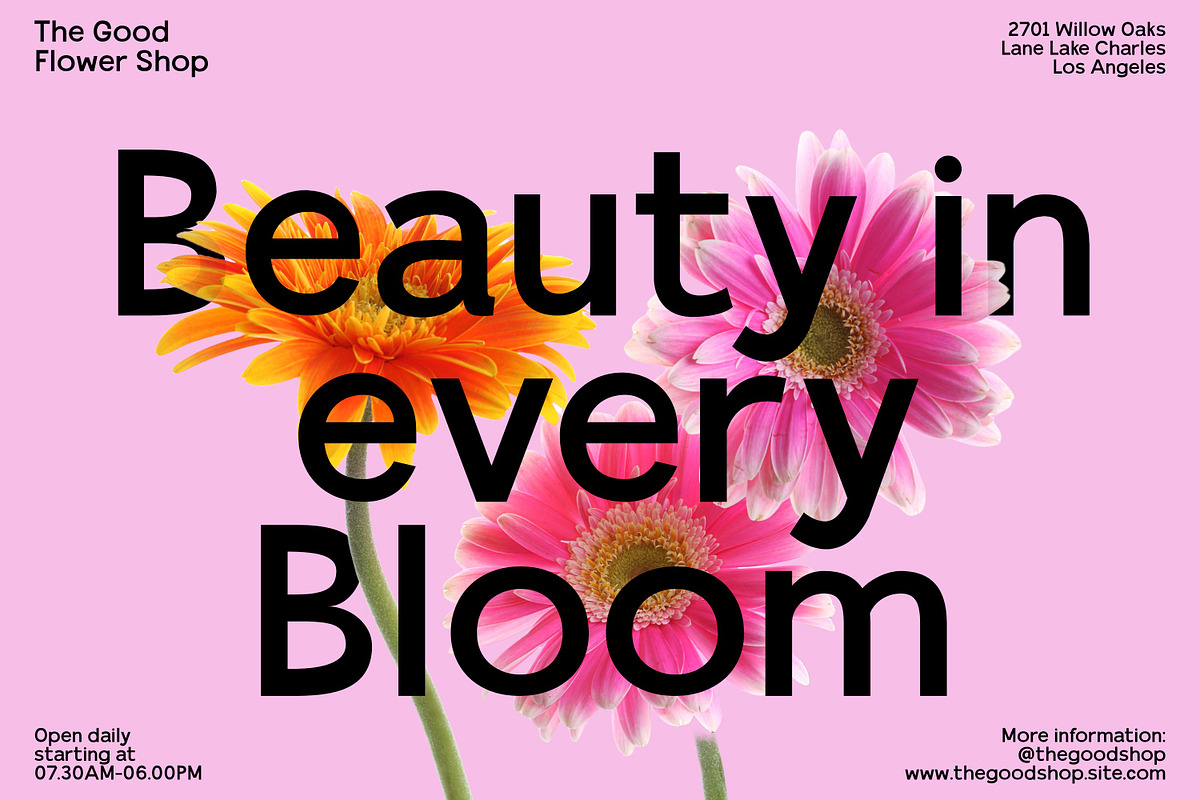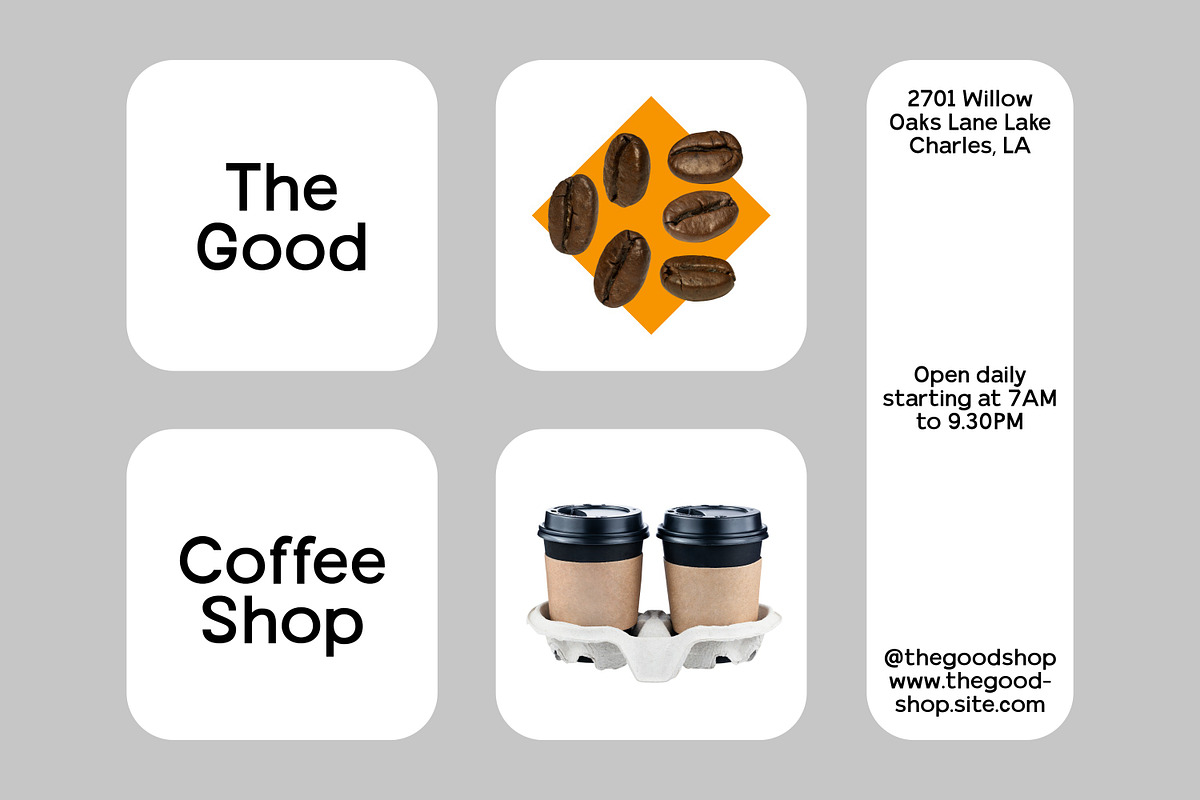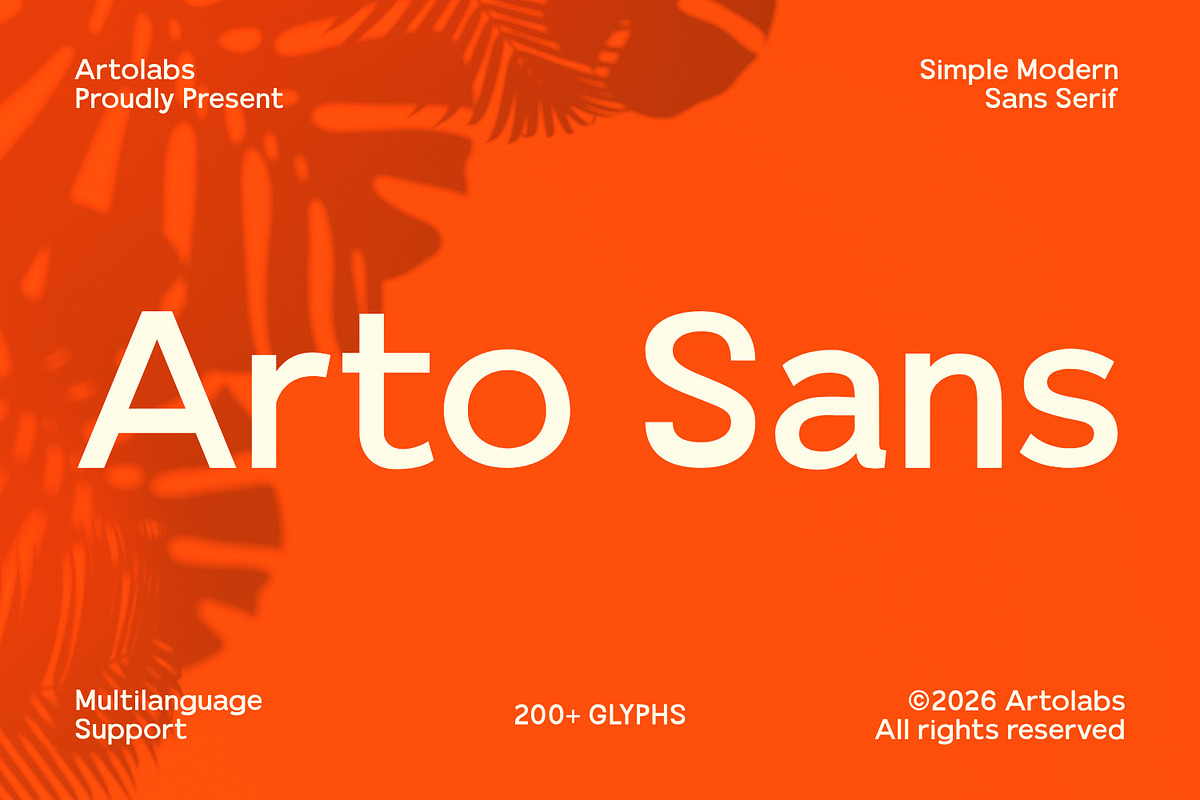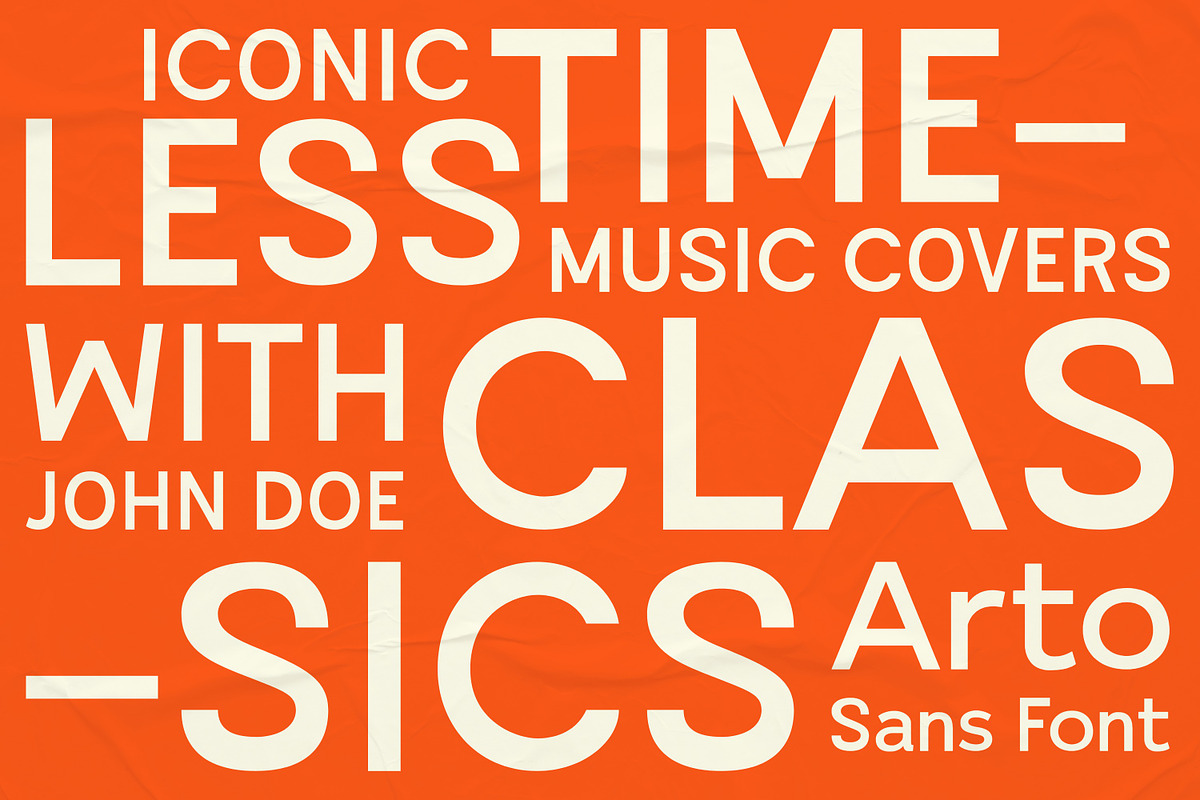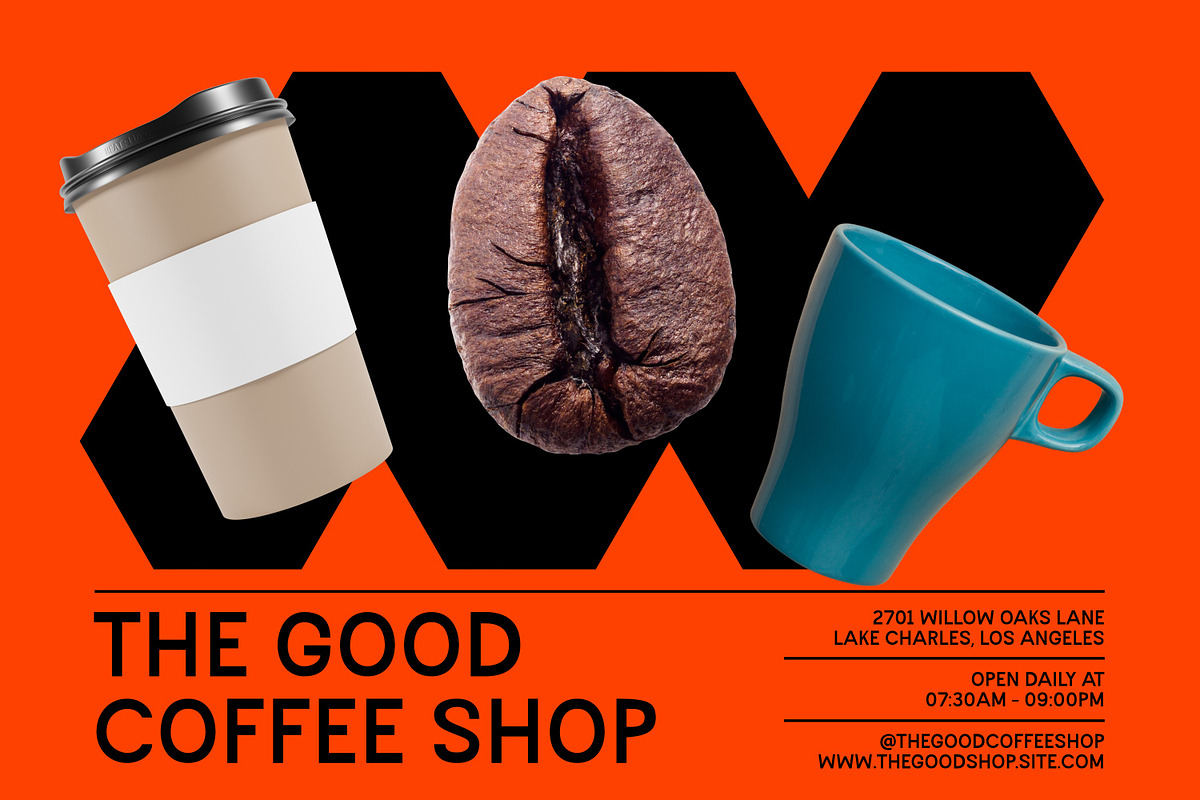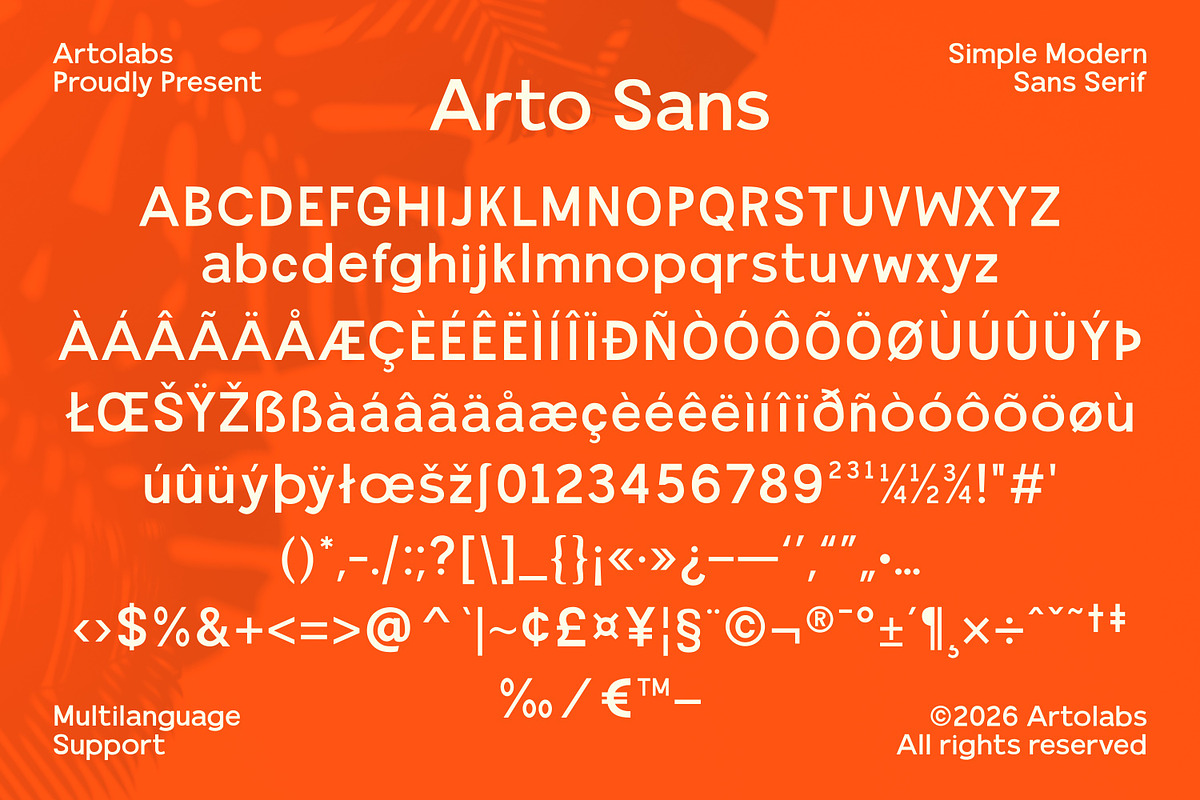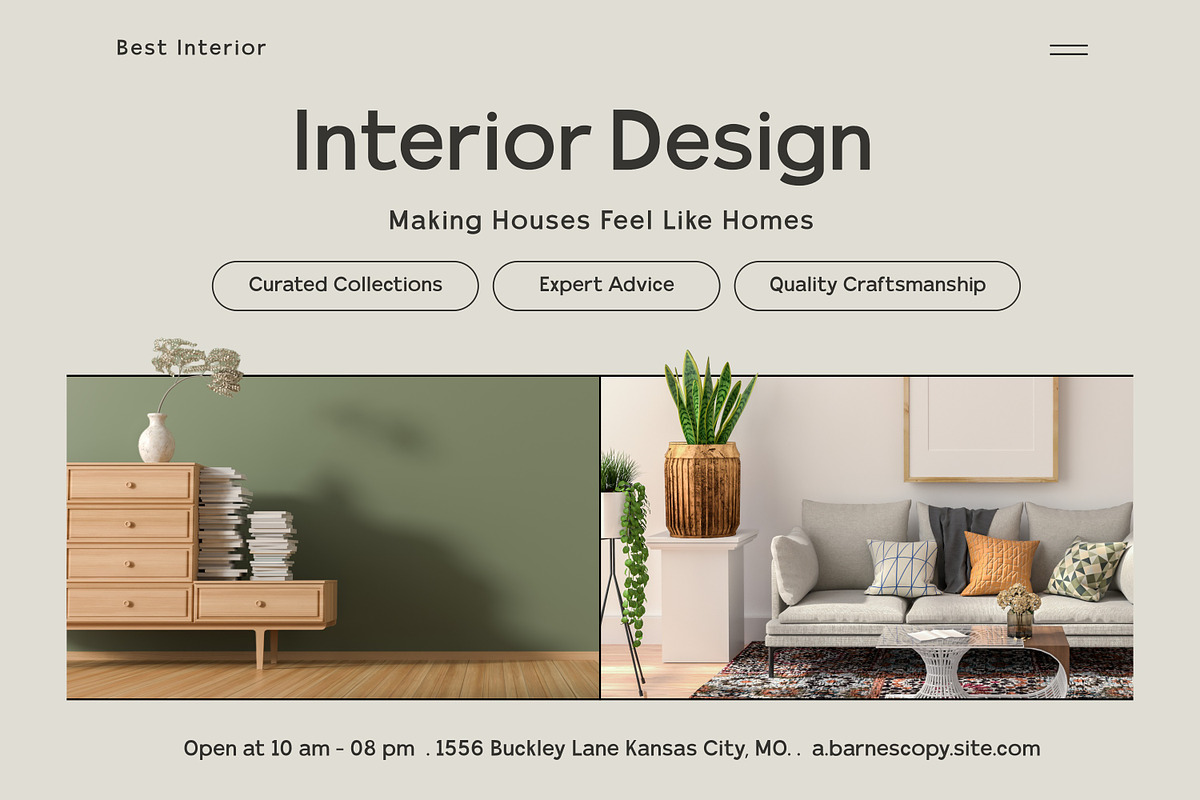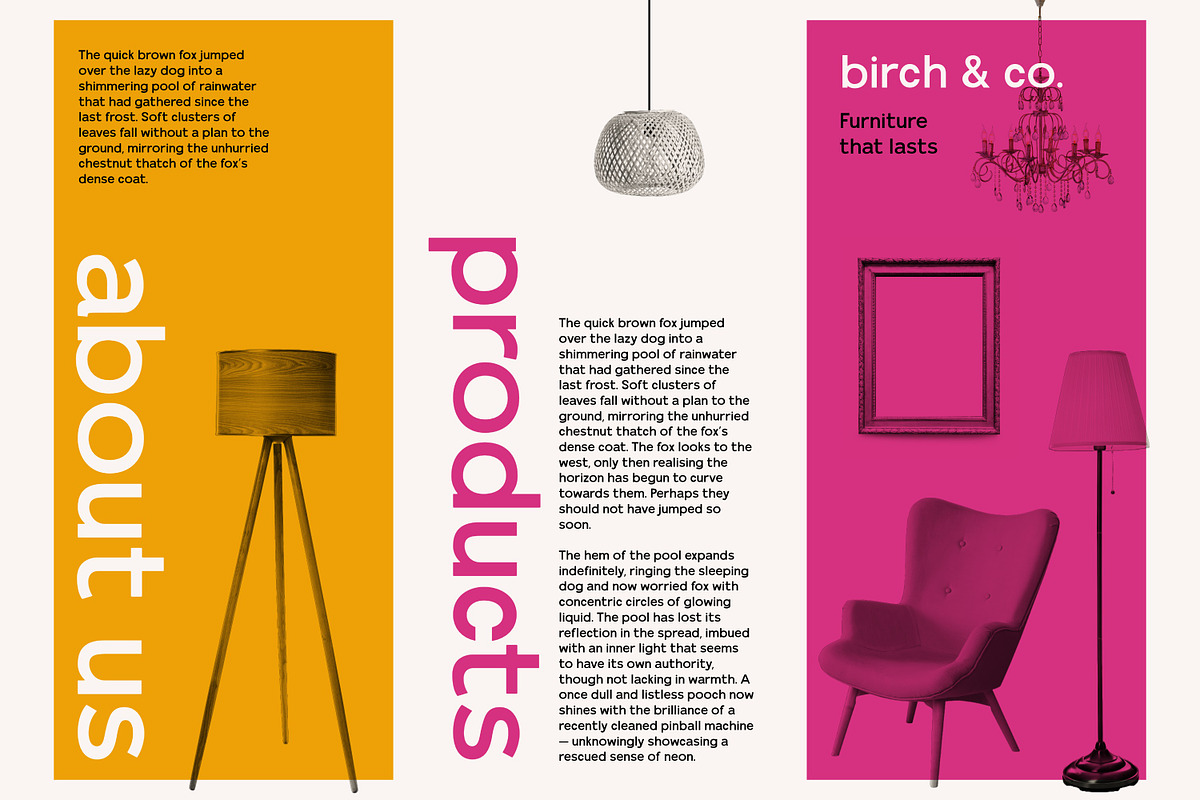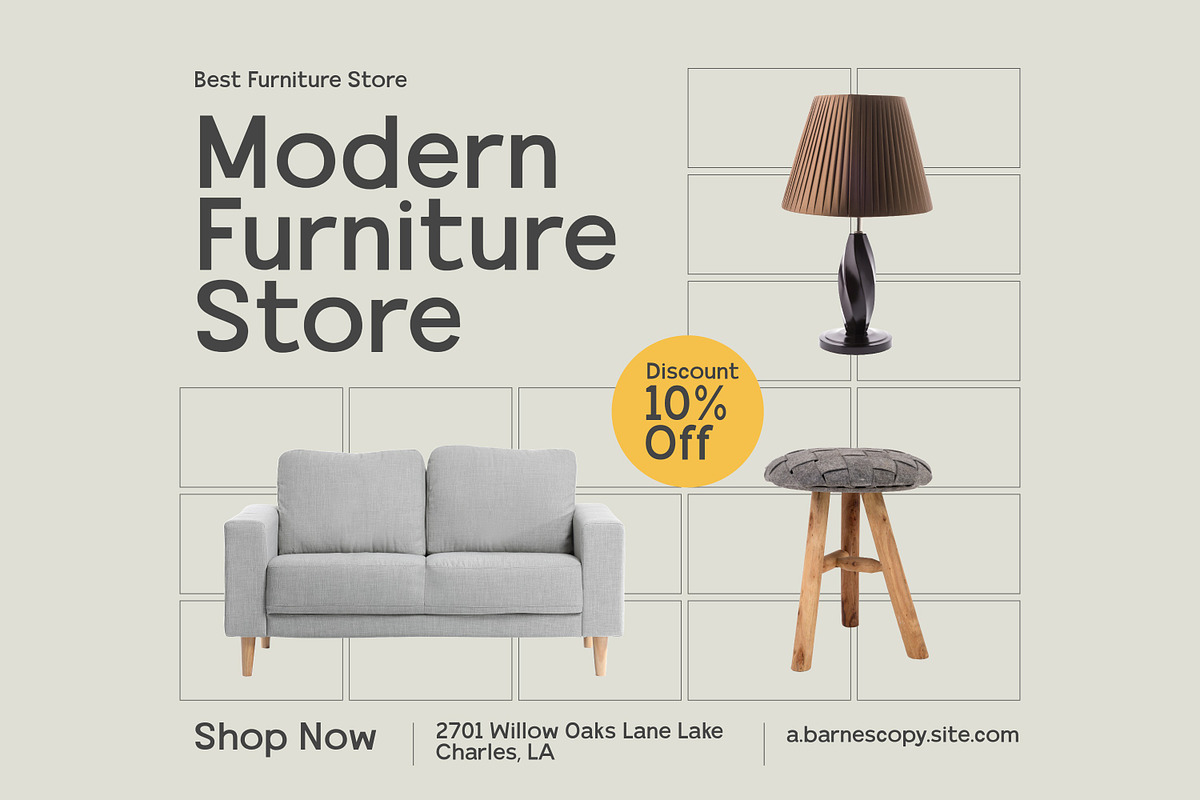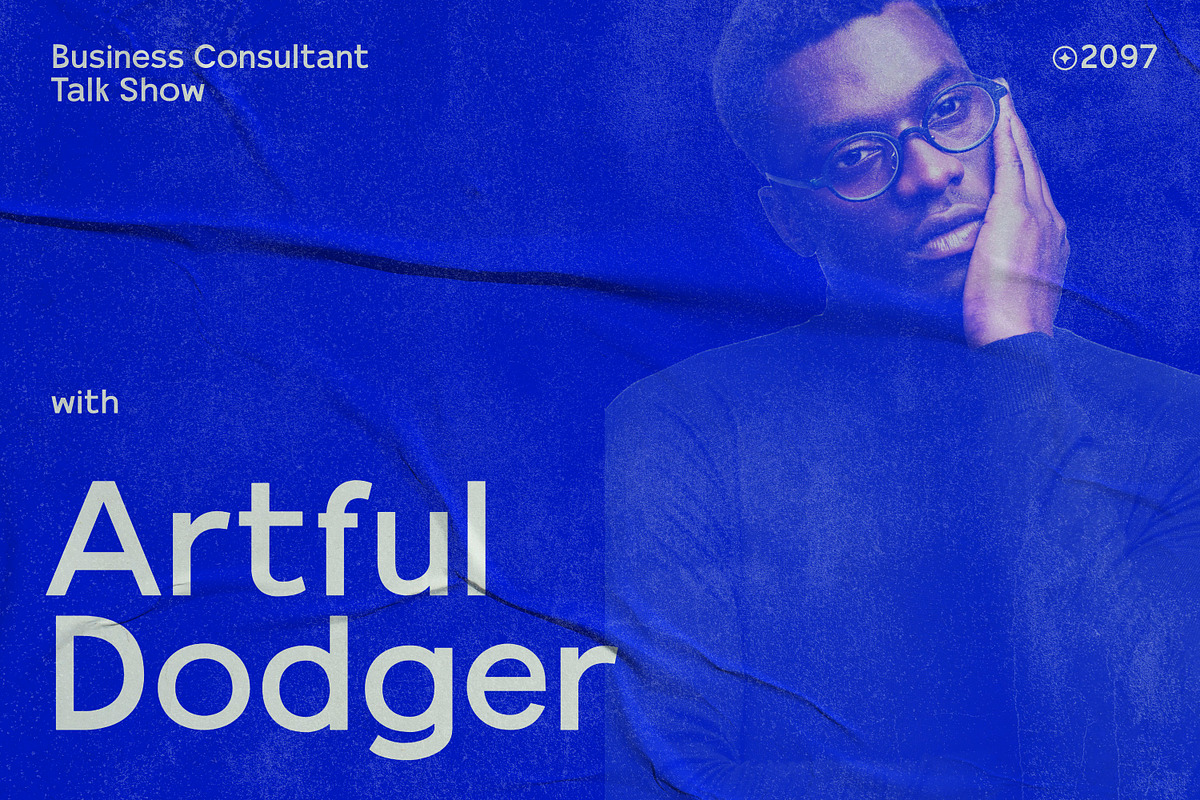
Arto Sans | Simple Modern Sans Serif
Arto Sans is a simple, modern sans serif font with clean, rounded letterforms. Its balanced structure and comfortable readability make it a versatile choice for both headings and body text.
With multilanguage support and over 200 glyphs, Arto Sans adapts easily to a wide range of projects, from branding to editorial layouts.
Branding & logo design
Editorial & magazine layouts
Website & UI design
Packaging design
Posters & social media graphics
Business documents & presentations